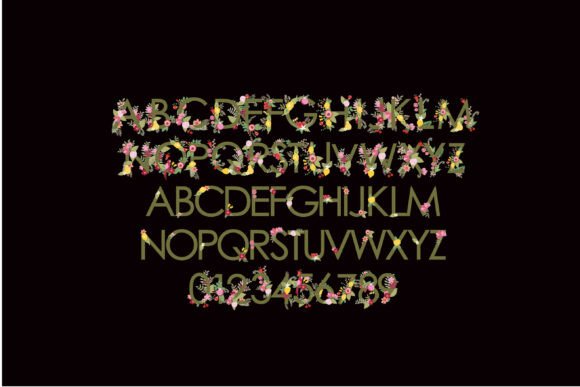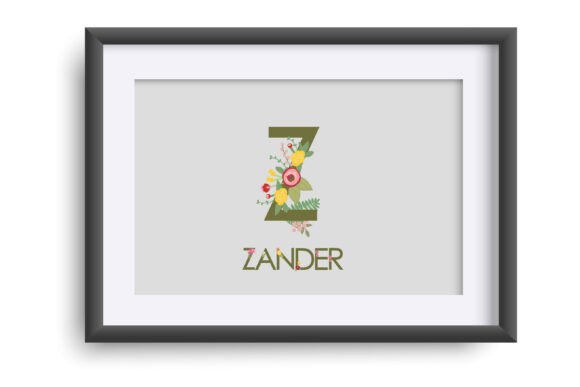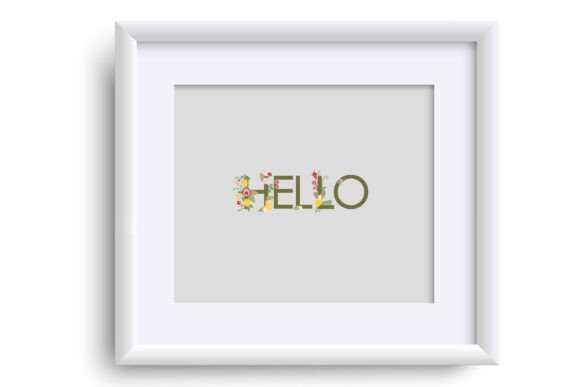
Introduction to Pretty Posies Too Font
Do you remember the feeling of stumbling upon a hidden garden, surrounded by lush greenery and vibrant wildflowers? The scent of blooming flowers, the soft rustle of leaves, and the gentle touch of nature’s beauty all combine to create a sense of serenity and wonder. This is the essence of the Pretty Posies Too Font, a sophisticated display typeface that captures the essence of wildflowers and refined elegance.
As a designer, you’re always on the lookout for that special something to elevate your next creative project. Whether it’s a free download or a premium design resource, having access to high-quality fonts like Pretty Posies Too Font can make all the difference. With its transparent background and intricate, hand-painted floral vines, this font is the perfect choice for designers who want to add a touch of natural nobility to their work.
From boutique botanical garden logos to high-impact social media headers, Pretty Posies Too Font is the ideal design resource for anyone looking to create a unique and captivating visual identity.
Key Features of Pretty Posies Too Font
- High-quality, hand-drawn design ideal for creative projects
- Transparent background, allowing for easy layering and customization
- Perfect for designers and crafters looking for a unique, whimsical touch
- Unique characteristics include intricate details and a delicate, floral aesthetic
Honest Review: Pretty Posies Too Font
I recently stumbled upon the Pretty Posies Too Font, and I must say it’s a delightful addition to any creative project. This high-quality font is perfect for adding a touch of whimsy and elegance to your designs.
One of the standout features of the Pretty Posies Too Font is its transparency. The transparent background allows for seamless integration with any design, making it a versatile design resource. ✨
The font itself is beautifully crafted, with intricate details and a soft, delicate look. It’s perfect for projects that require a touch of romance or vintage charm.
Here are some of the key features of the Pretty Posies Too Font:
- Delicate, intricate details
- Perfect for creative projects
While the Pretty Posies Too Font is a great addition to any design library, it does have some limitations. ⚠️ The font is not suitable for projects that require a bold, modern look, and it may not be the best choice for large-scale text.
Overall, I’m impressed with the Pretty Posies Too Font, and I think it’s a great design resource for any creative project. With its high-quality design and transparent background, it’s a versatile and elegant font that’s sure to add a touch of sophistication to your designs.
The Pretty Posies Too Font is ideal for various creative projects, including wedding invitations, baby shower invitations, and other special occasion designs. You can also use the font in business presentations, marketing materials, and other professional designs where a touch of elegance is required.